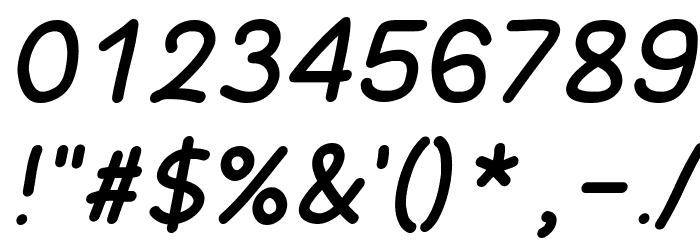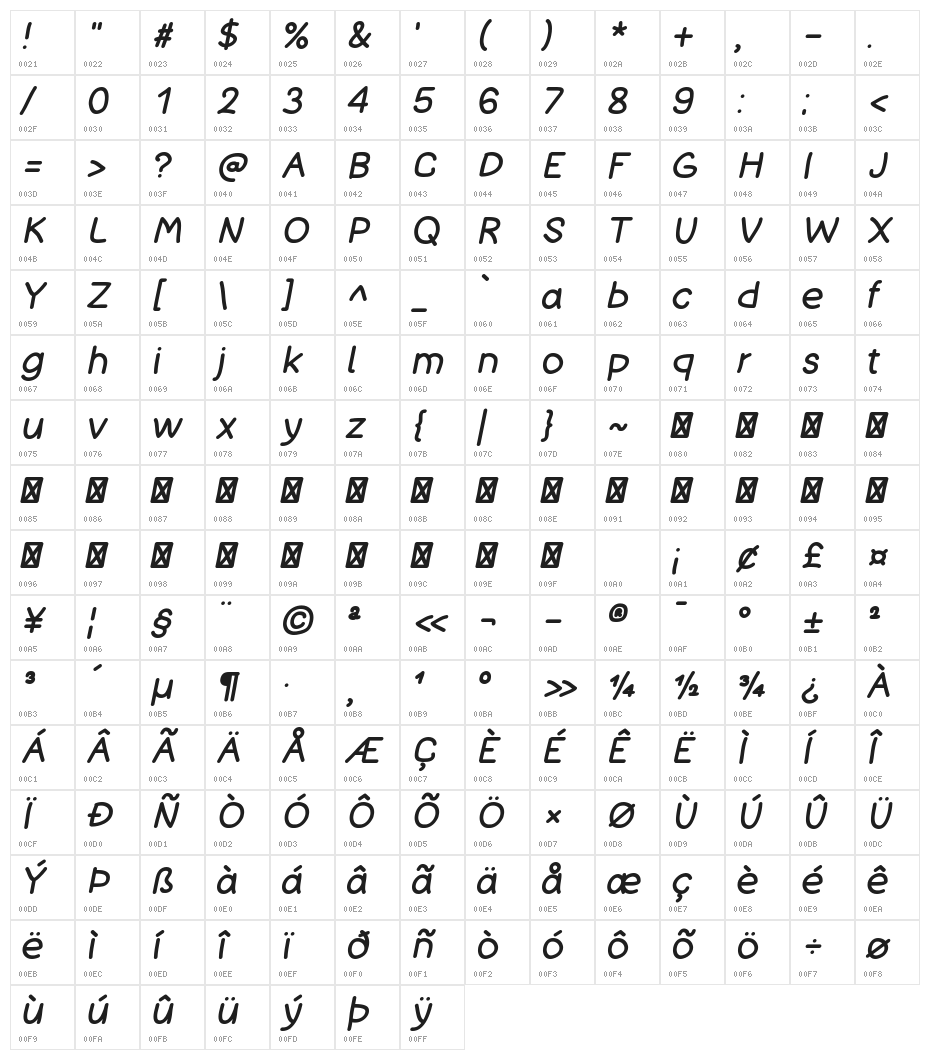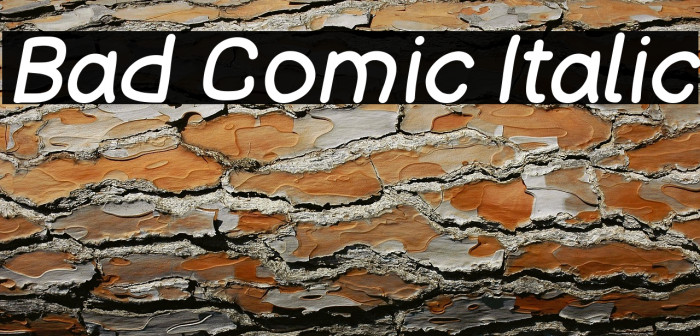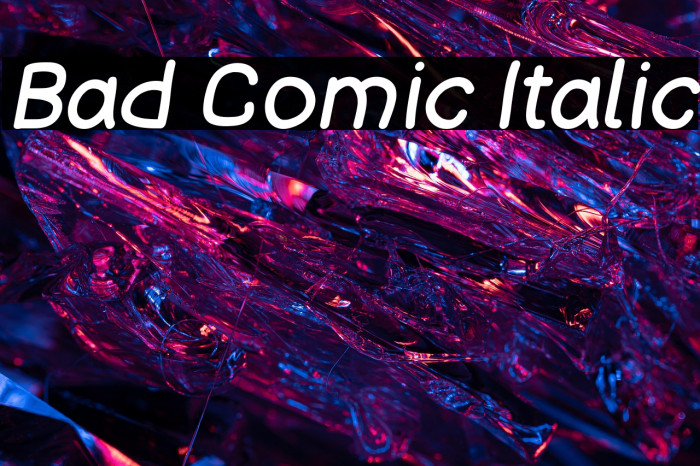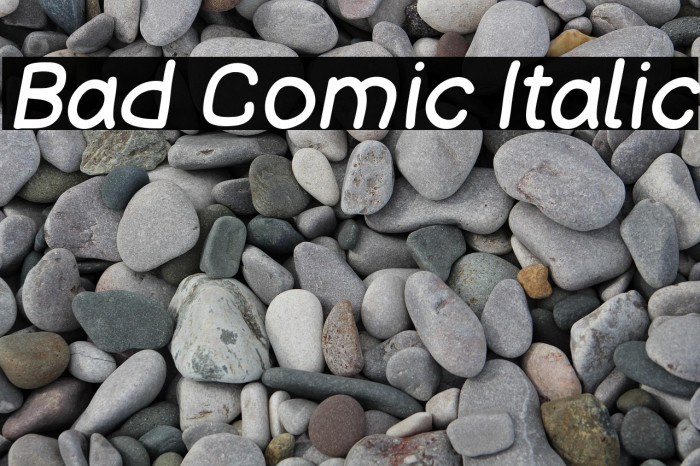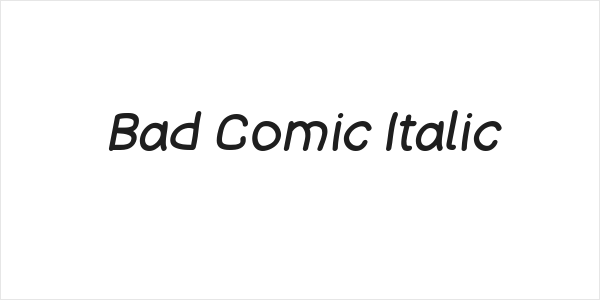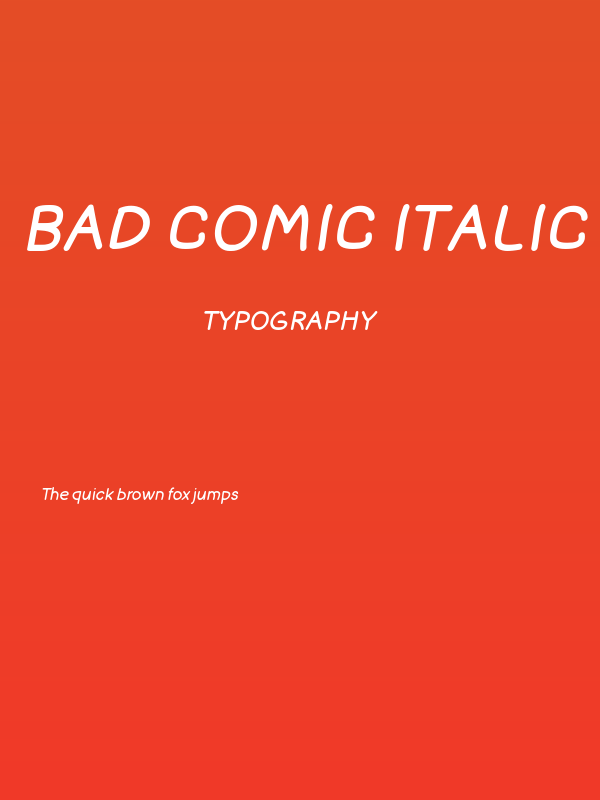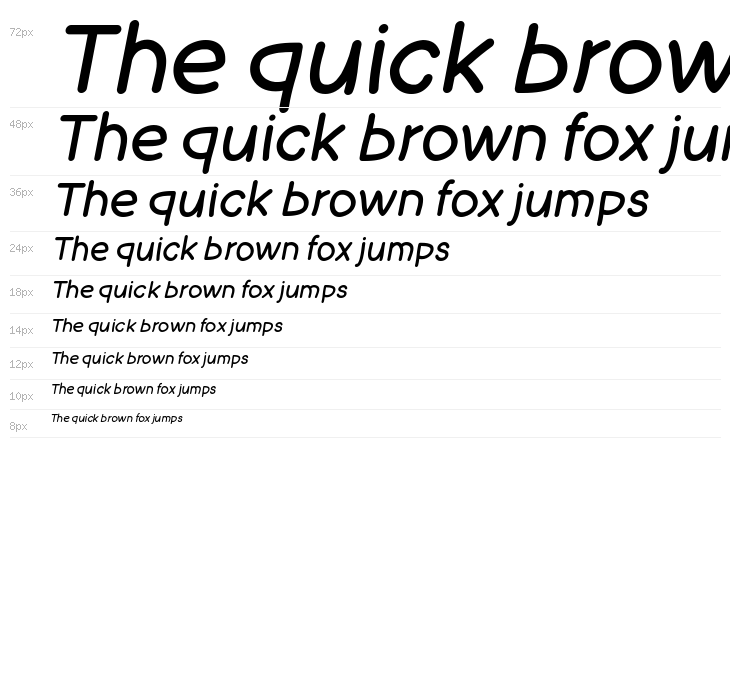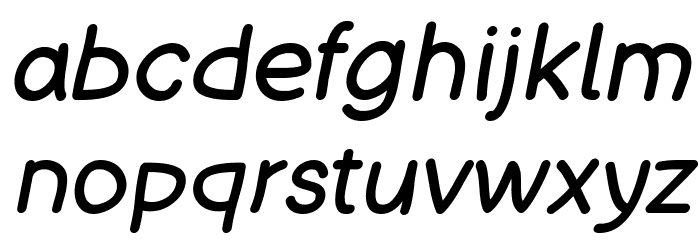
Bad Comic Italic Font
Bad Comic Italic Description
This playful and informal font features a handwritten style with a slight slant, giving it an italic appearance. The characters are rounded and smooth, with a consistent stroke width that adds to its casual and friendly look. The uppercase and lowercase letters maintain a uniform height, contributing to its readability. The numerals and special characters are designed to match the overall style, making it versatile for various uses. Its approachable and fun aesthetic makes it suitable for projects that require a lighthearted and engaging tone.
| Use Case | Headlines, Informal text, Comics |
| Proposed Projects | Ideal for comic strips, children's books, casual invitations, and playful branding. |